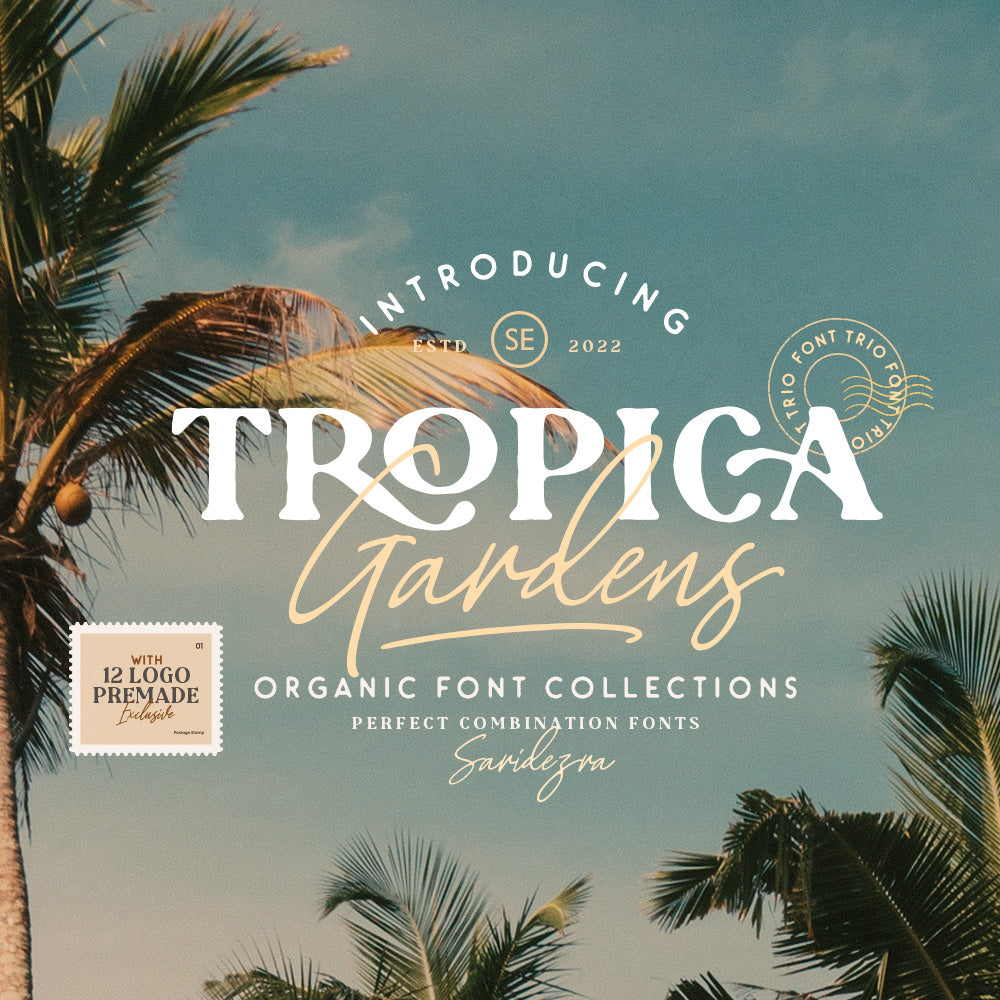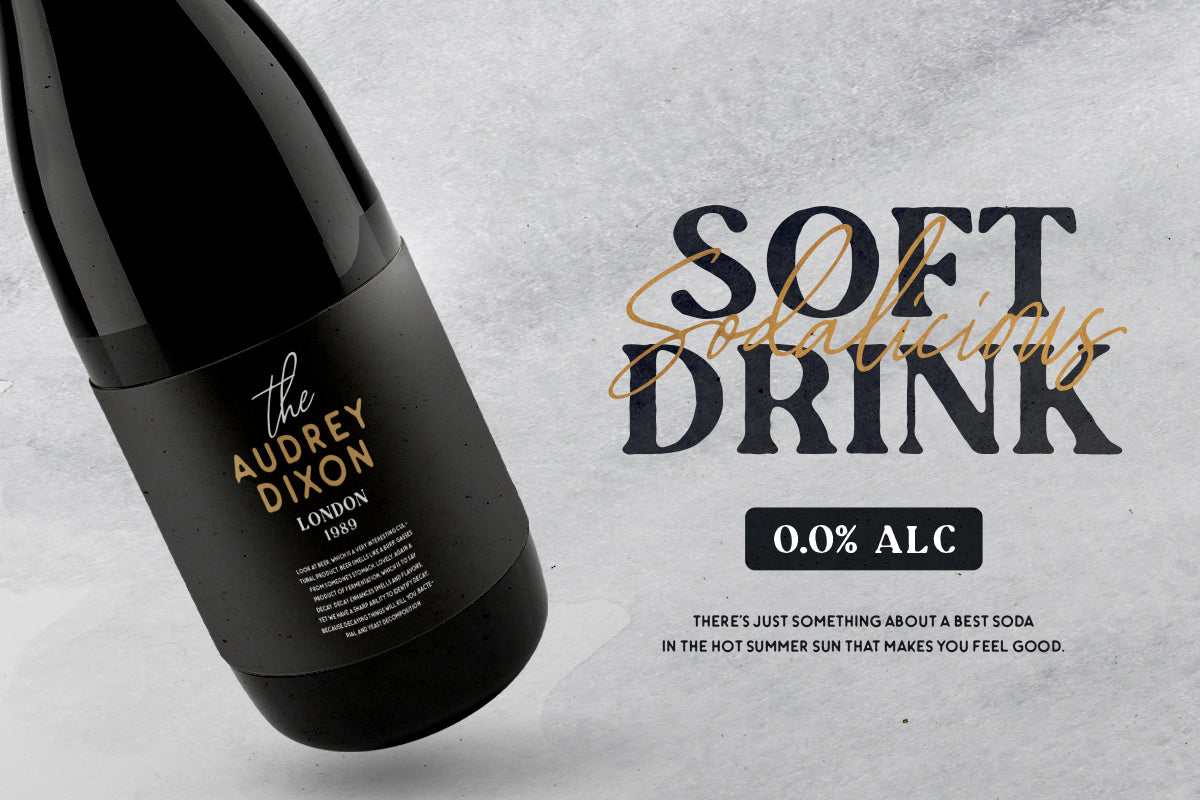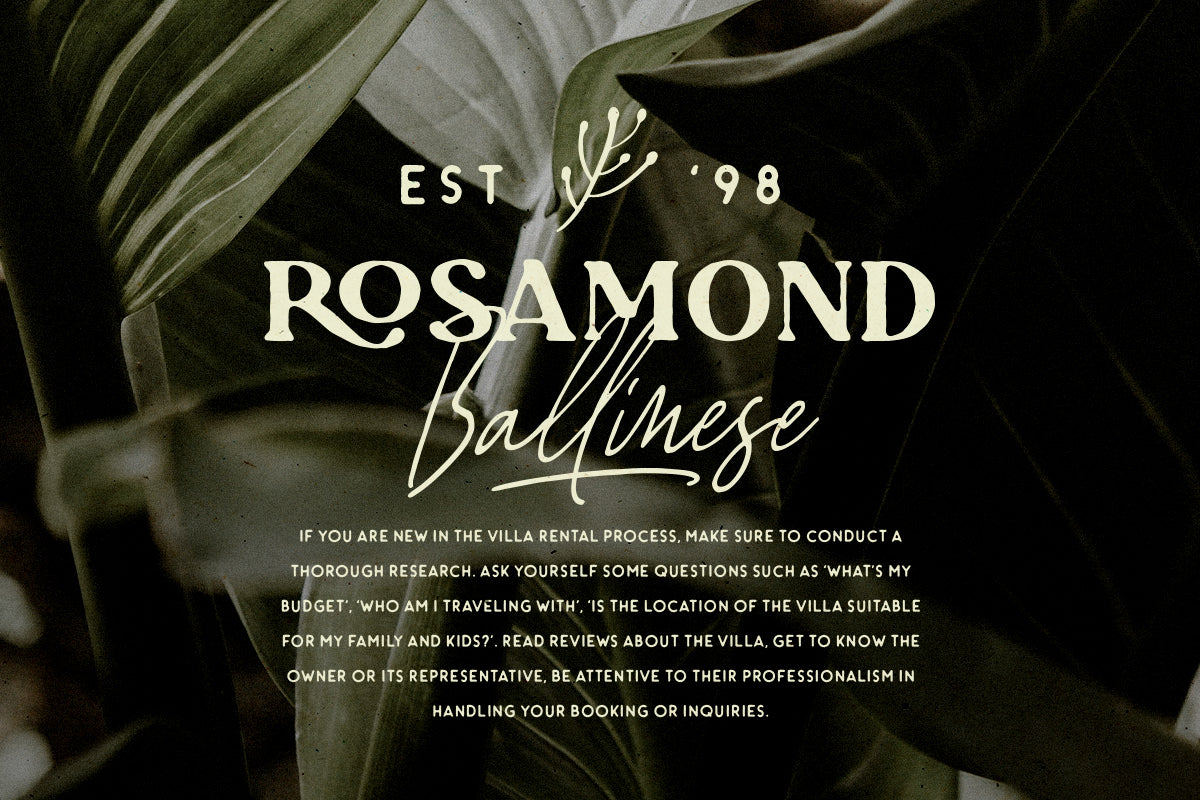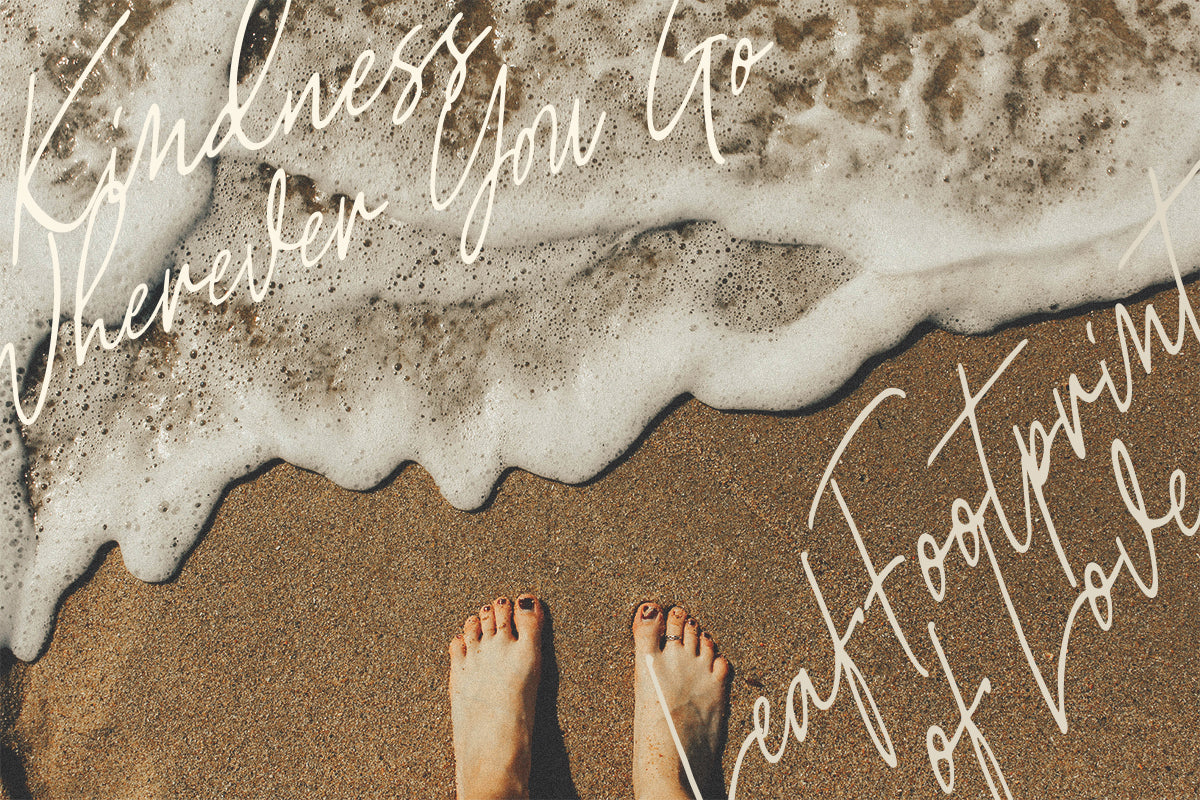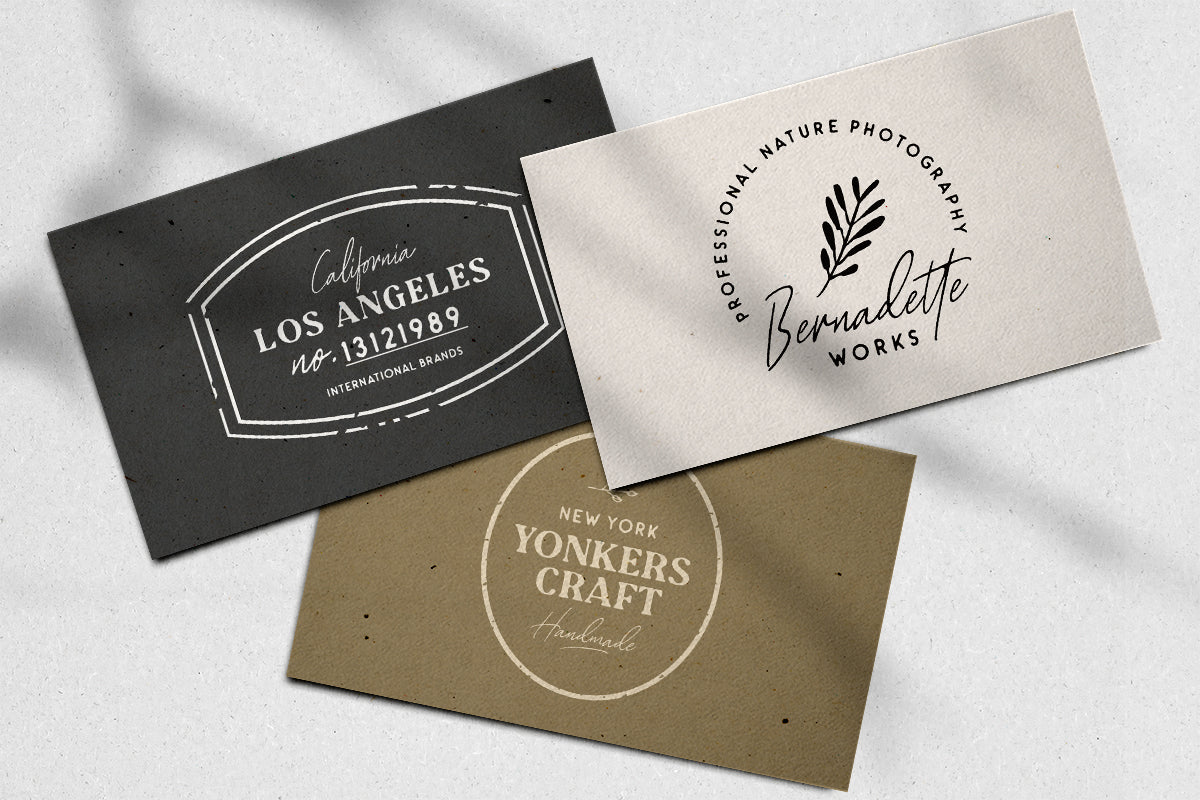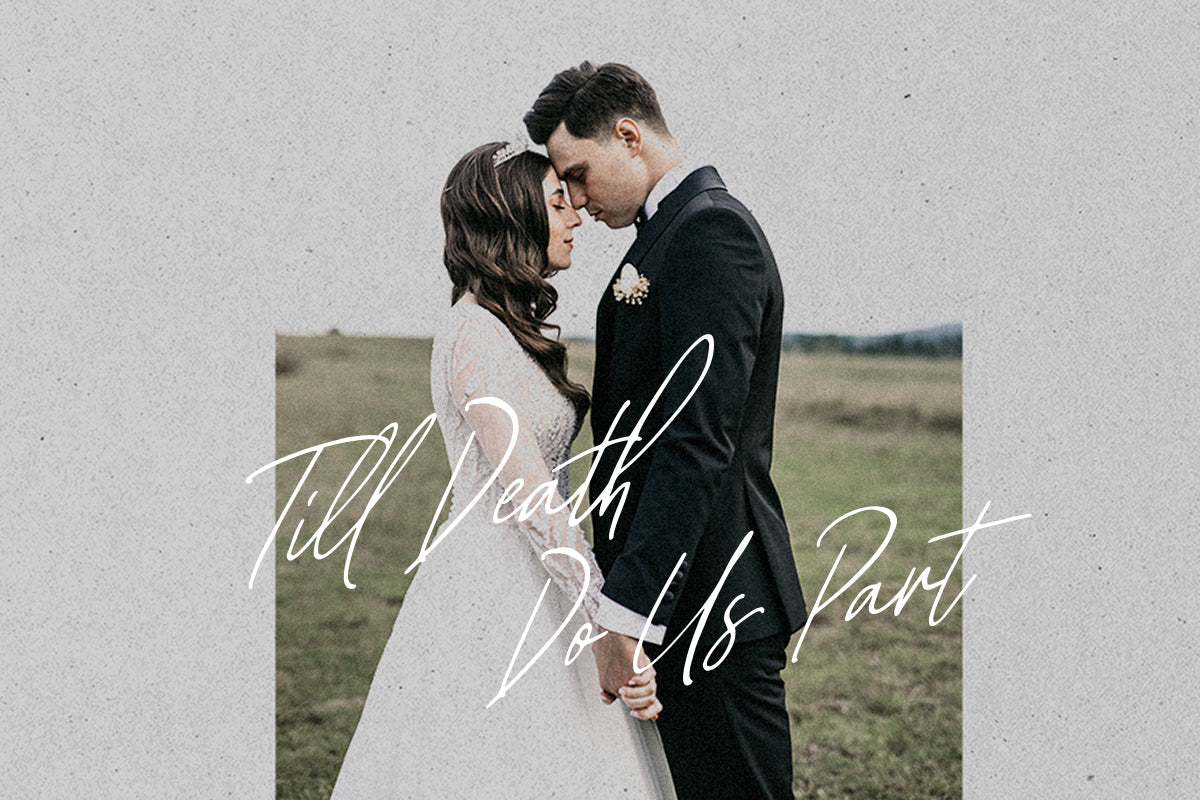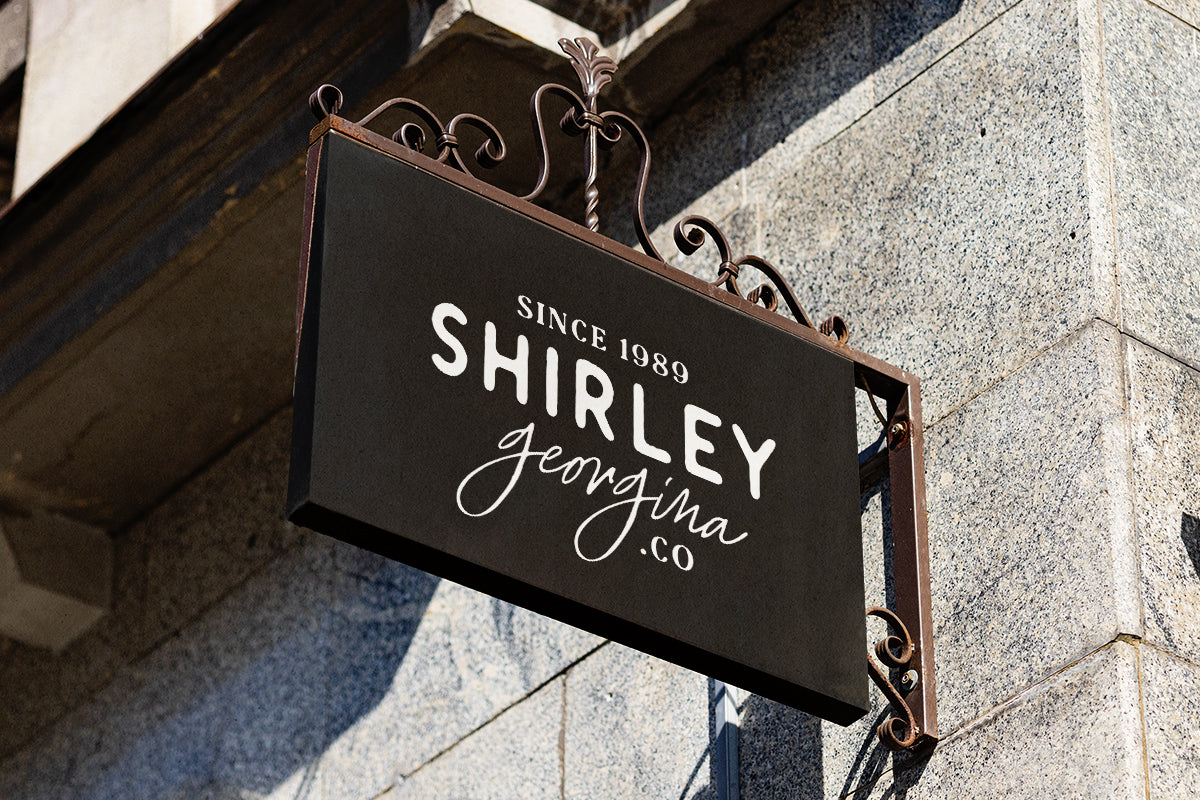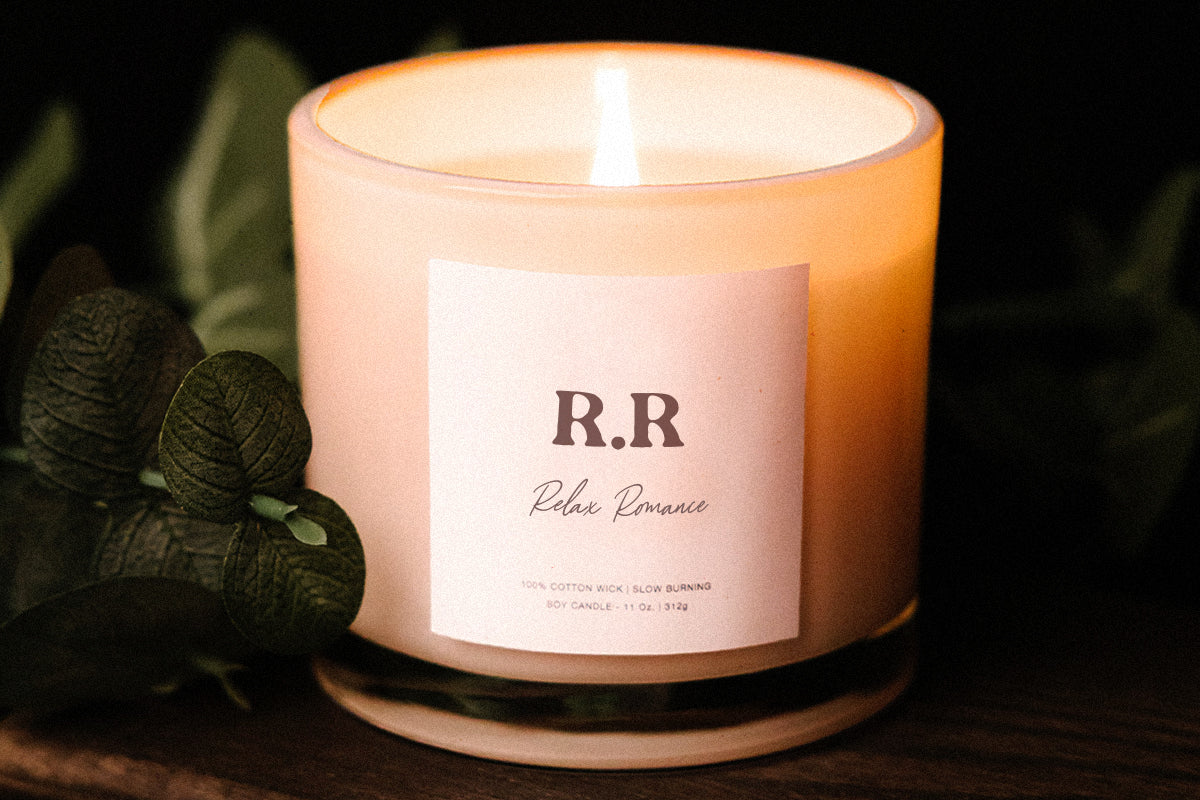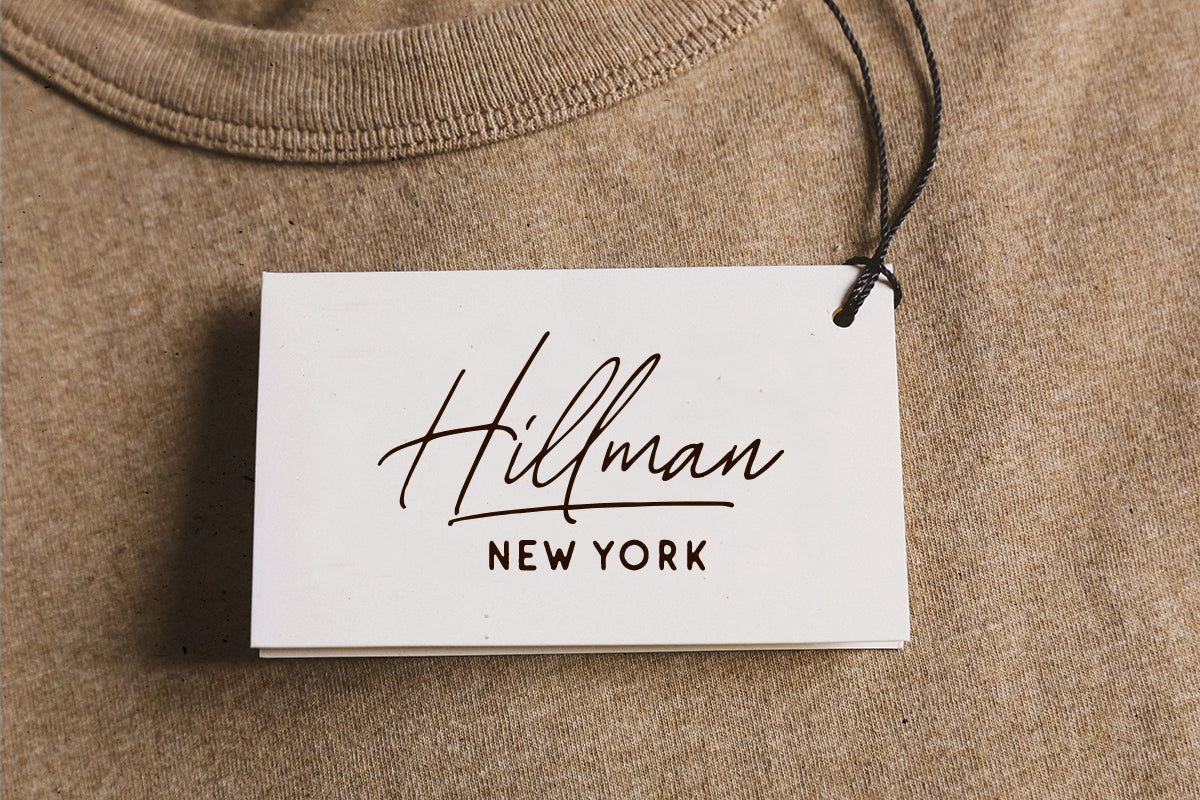
Tropica Gardens - Font Trio (+LOGOS)
Tropica Gardens - Font Trio (+LOGOS) includes three complementary fonts: a bold serif, a rounded sans, and an authentic signature style, all supporting multilingual characters, numbers, and symbols. The package also features 12 premade logos for easy logo creation.